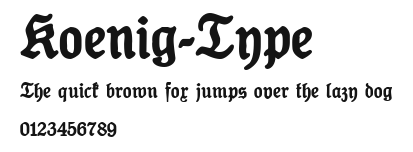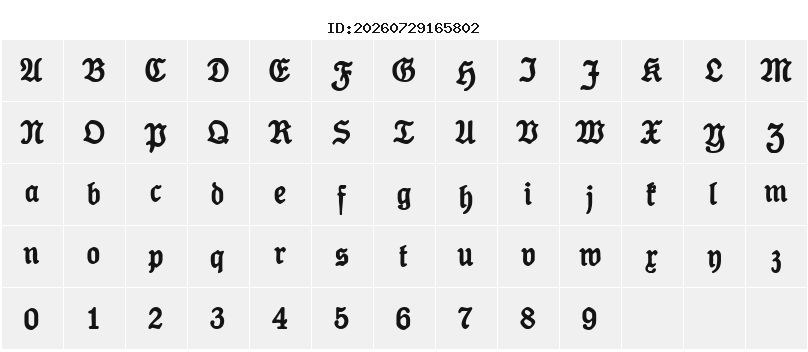
• Font Name: Koenig-Type
• Designer: Dieter Steffmann
• Description: Koenig-Type Jugendstilfraktur geschaffen von Heinz Koenig, 1907-1910. Digitalisiert durch Dieter Steffmann, Kreuztal.